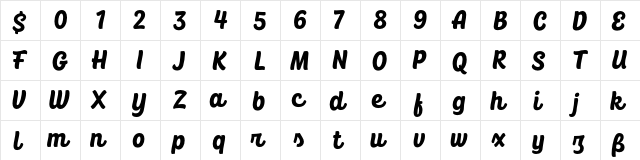
CoolKids-DEMO Bold
Design Context for CoolKids-DEMO Typeface
CoolKids-DEMO has an approachable, lighthearted character — its loose, expressive forms are well-suited to children's content, casual branding, and fun-first design.
Font Pairing: Pairs well with a rounded or humanist sans for body copy, maintaining the friendly tone without relying on CoolKids-DEMO to carry extended reading.
Pro Tip: Avoid using CoolKids-DEMO for long passages of text — it works best for headlines, labels, and short calls to action.